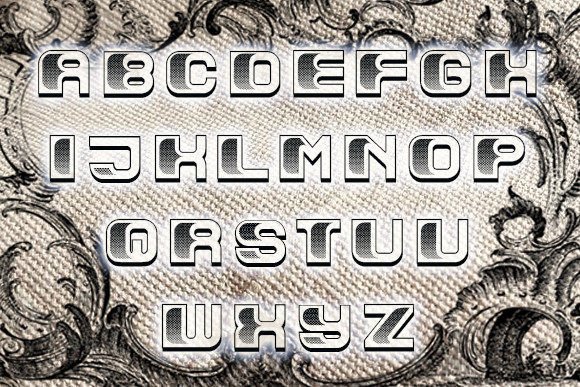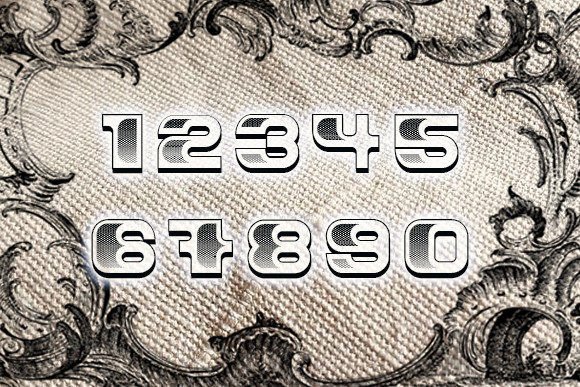
Cannon Font: The Ultimate 3D Retro Typeface for Creative Projects
Are you tired of using the same old fonts in your creative projects? Look no further than the Cannon Font, an awesome 3D retro typeface that’s sure to add a refreshing and cool touch to your designs. With its unique and eye-catching style, Cannon is perfect for a wide range of applications, from postcards and flyers to posters, banners, album covers, and more!
What is Cannon Font?
Cannon Font is a 3D retro typeface that’s inspired by the classic fonts of the past. Its bold and chunky design makes it perfect for creating eye-catching headlines and titles that demand attention. The font is available in a range of styles and can be used for both personal and commercial projects.
Key Features of Cannon Font
- Unique 3D design: Cannon Font features a unique 3D design that’s sure to add depth and interest to your designs.
- Retro style: The font’s retro style is inspired by the classic fonts of the past, making it perfect for creating vintage-themed designs.
- Bold and chunky: Cannon Font is bold and chunky, making it perfect for creating eye-catching headlines and titles.
- Multi-purpose: The font can be used for a wide range of applications, from postcards and flyers to posters, banners, album covers, and more!
Why Use Cannon Font?
There are many reasons why you should consider using Cannon Font in your creative projects. Here are just a few:
- Add a touch of nostalgia: Cannon Font’s retro style is sure to add a touch of nostalgia to your designs, making them stand out from the crowd.
- Create eye-catching headlines: The font’s bold and chunky design makes it perfect for creating eye-catching headlines and titles that demand attention.
How to Use Cannon Font
Using Cannon Font is easy! Here are just a few tips to get you started:
- Pair it with other fonts: Cannon Font looks great when paired with other fonts, such as sans-serif fonts like Arial or Helvetica.
- Experiment with colors: The font looks great in a range of colors, from bold and bright to muted and pastel.
- Use it for headlines: Cannon Font is perfect for creating eye-catching headlines and titles that demand attention.
- Try it on different materials: The font looks great on a range of materials, from paper to fabric to metal.
Cannon Font in Action
Here are just a few examples of how Cannon Font can be used in creative projects:
- Postcards: Use Cannon Font to create eye-catching postcards that demand attention.
- Flyers: The font is perfect for creating bold and eye-catching flyers that advertise events, products, or services.
- Posters: Cannon Font looks great on posters, whether you’re creating a bold and eye-catching headline or a more subtle and understated design.
- Banners: The font is perfect for creating bold and eye-catching banners that demand attention.
- Album covers: Cannon Font looks great on album covers, adding a touch of nostalgia and retro style to your music designs.
In conclusion, Cannon Font is an awesome 3D retro typeface that’s perfect for creative projects. With its unique and eye-catching style, bold and chunky design, and multi-purpose functionality, Cannon Font is sure to add a refreshing and cool touch to your designs. Whether you’re a designer, crafter, or DIY enthusiast, Cannon Font is a great addition to your font library.